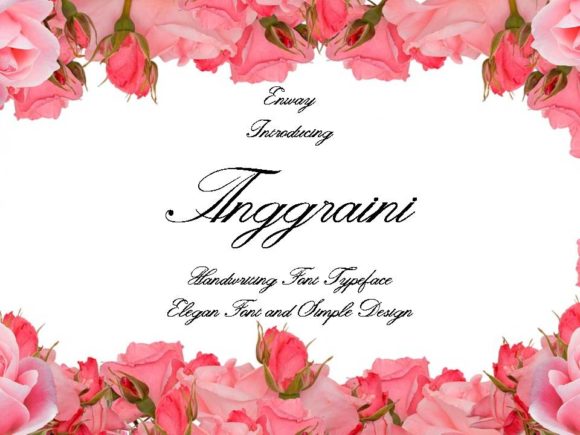
Unleash the allure of Anggraini Font, a breathtaking script font that embodies grace and sophistication. Its meticulously crafted design evokes the elegance of handwritten letters, captivating your audience with its alluring charm.
Immerse yourself in the beauty of Anggraini's simplicity, where every stroke and curve flows effortlessly. Its clean lines and balanced proportions create a timeless aesthetic that transcends trends. With Anggraini, your designs will radiate an air of effortless chic, leaving an unforgettable impression.
Whether you're crafting invitations for a special occasion, designing logos for discerning brands, or seeking to add a touch of sophistication to your social media presence, Anggraini is the perfect choice. Its versatility extends to a wide range of projects, allowing you to express your creativity and elevate your designs to new heights.
Experience the transformative power of Anggraini Font today. Let its timeless elegance enhance your creations and evoke a sense of wonder in your audience.